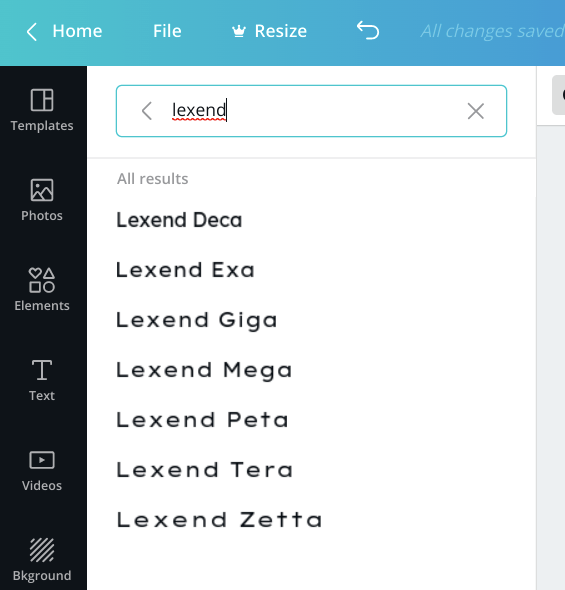
Best Fonts For Dyslexia Google Docs
Best Fonts For Dyslexia Google Docs. { font types have a signi cant impact on readability of people with dyslexia. Additional factors such as letter spacing, the spacing between words and lines on a page, font size, text colour and background can all impact on readability and reading speed.
The 5 best new fonts to use in Google Docs
It’s a monospaced slab serif typeface that was designed by howard “bud” kittler, and he designed it for ibm’s typewriters. Write google docs that rock. Verdana is arguably one of the best fonts for dyslexia in google docs and microsoft word.
However, Later On, It Was Also Adopted As A Computer Font, And Now It’s Pretty Popular Among People With Dyslexia.
It’s A Monospaced Slab Serif Typeface That Was Designed By Howard “Bud” Kittler, And He Designed It For Ibm’s Typewriters.
However, there seems to be some conflict when using google docs. For students without learning disabilities, writing in google docs is a smooth experience. Add opendyslexic font to google docs, sheets, etc.
For Example, Dyslexie Font Is A Font Designed Specifically For Dyslexic Readers.
Opendyslexic is free to use. On the contrary, arial it. Opendyslexic was selected because is a freely distributed font specifically designed to assist dyslexic readers.
Dyslexie, open dyslexic, and comic sans! Which it does not have. Should be avoided since it decreases readability.